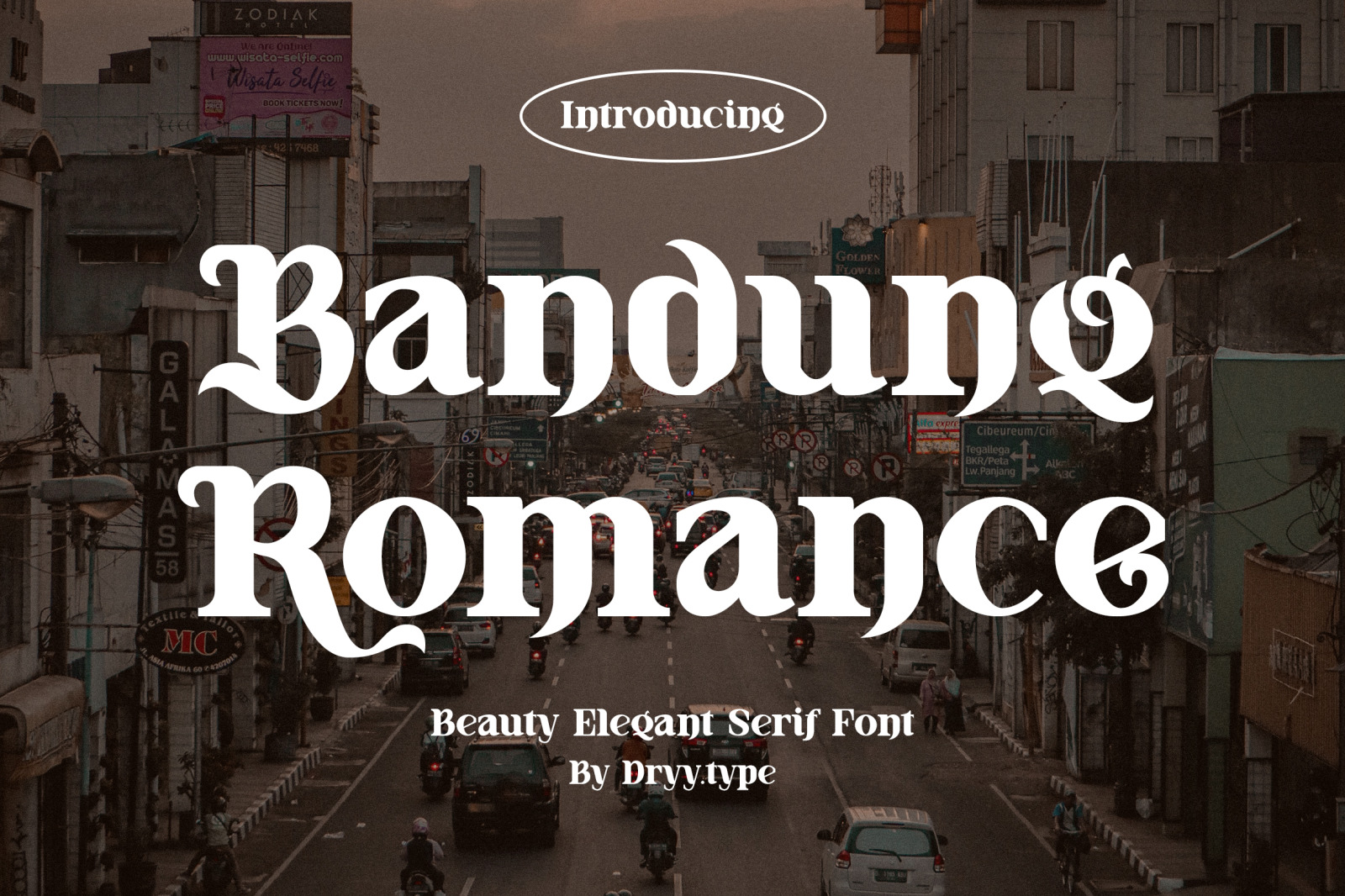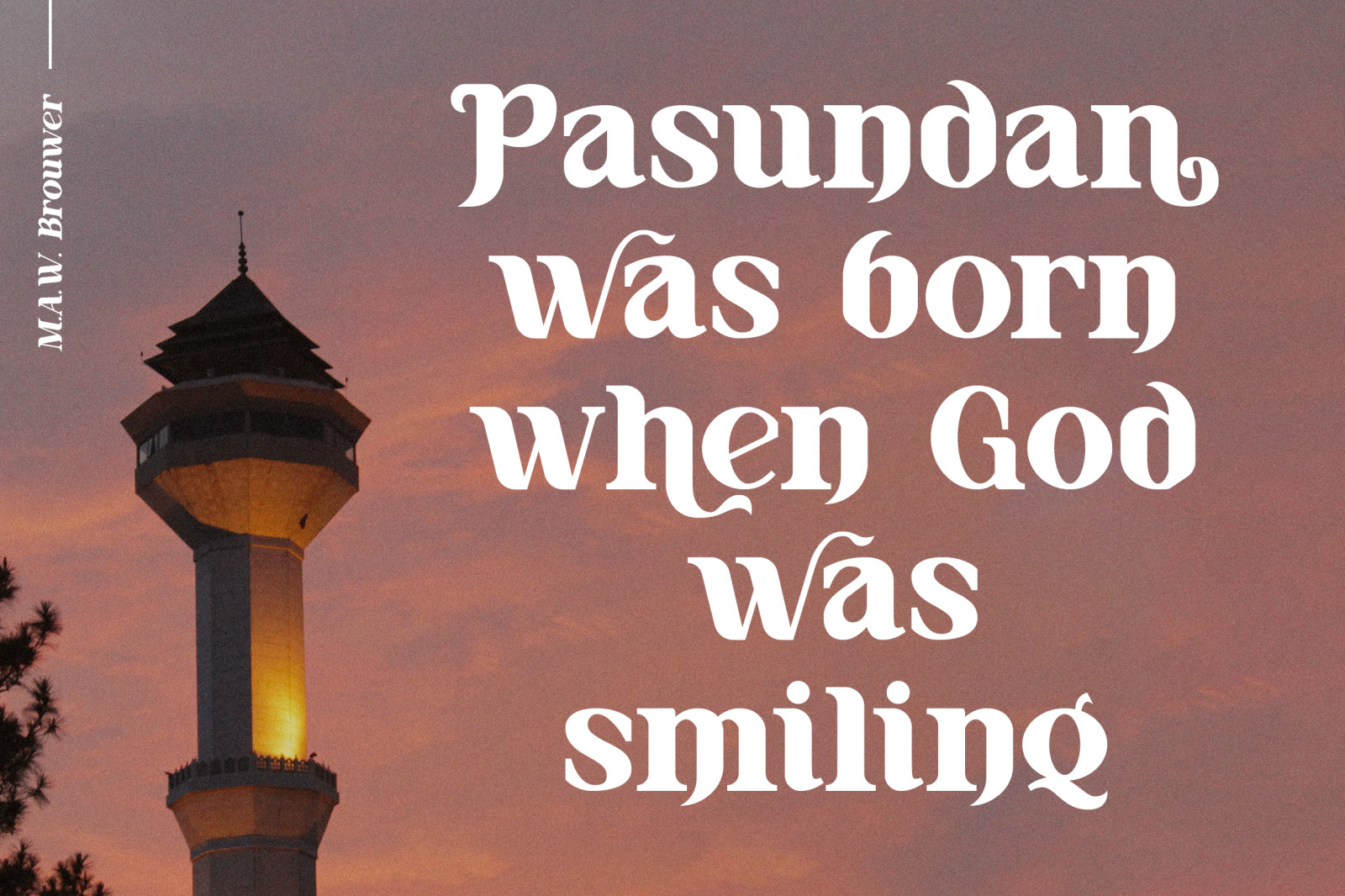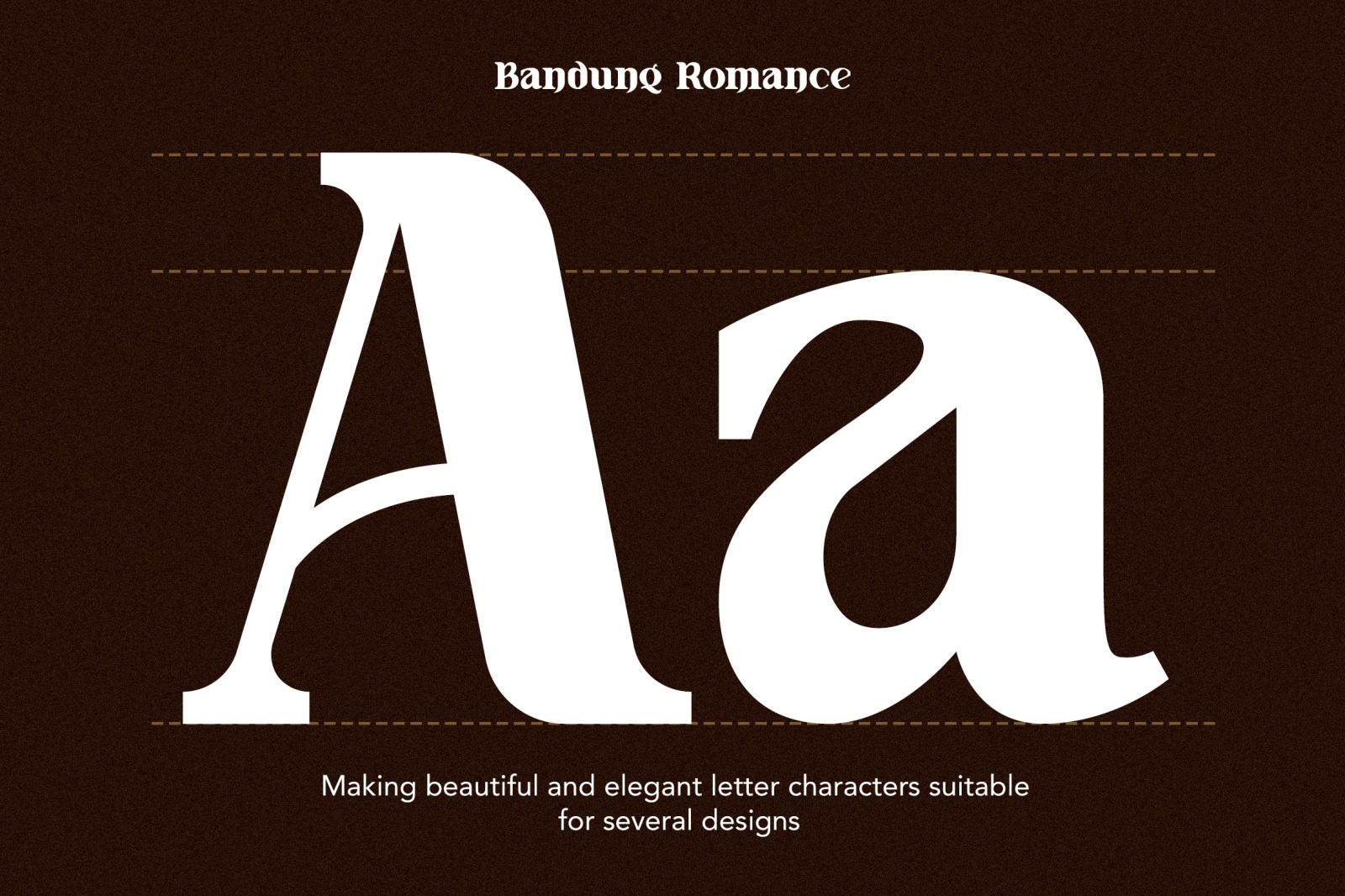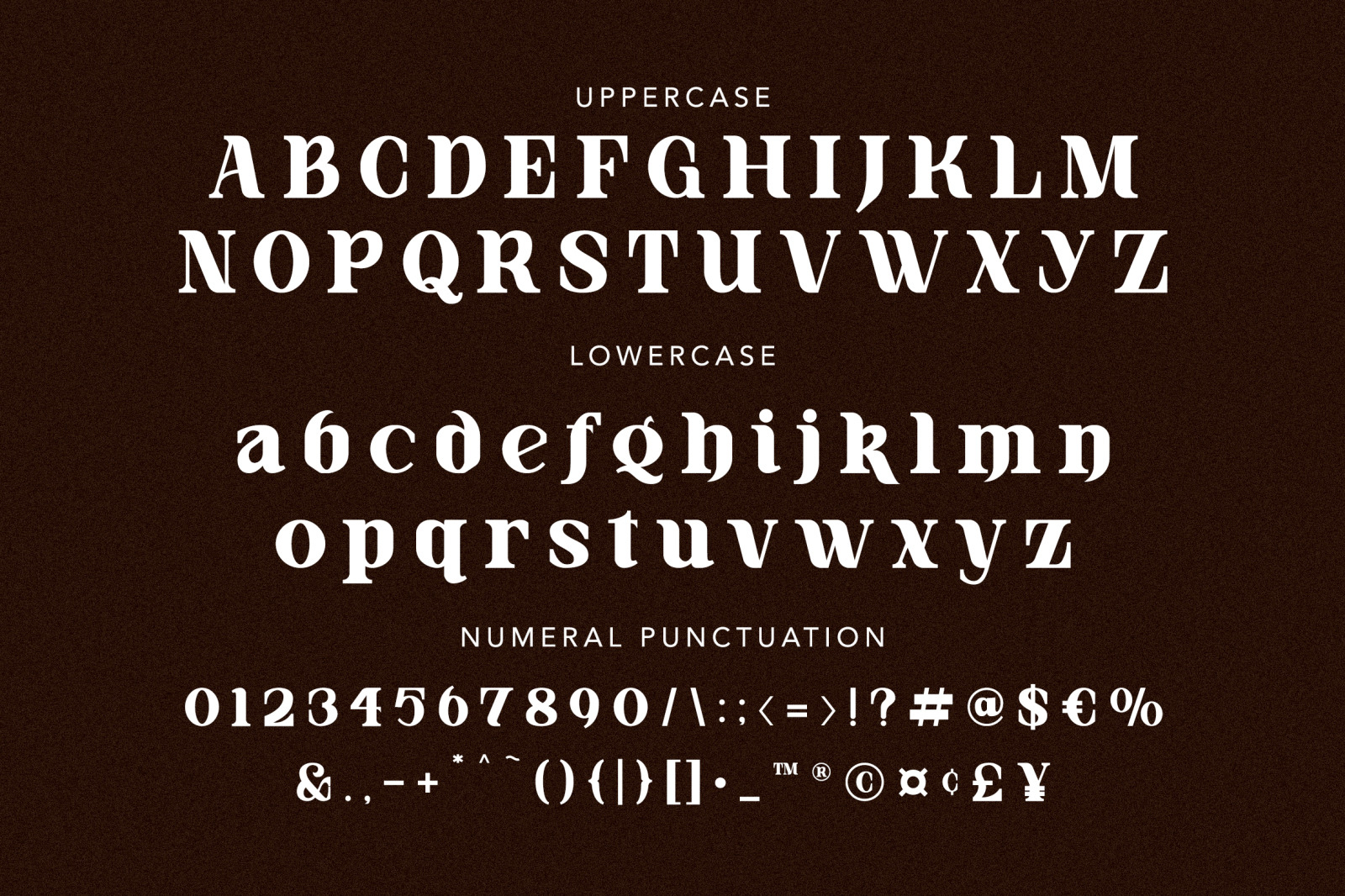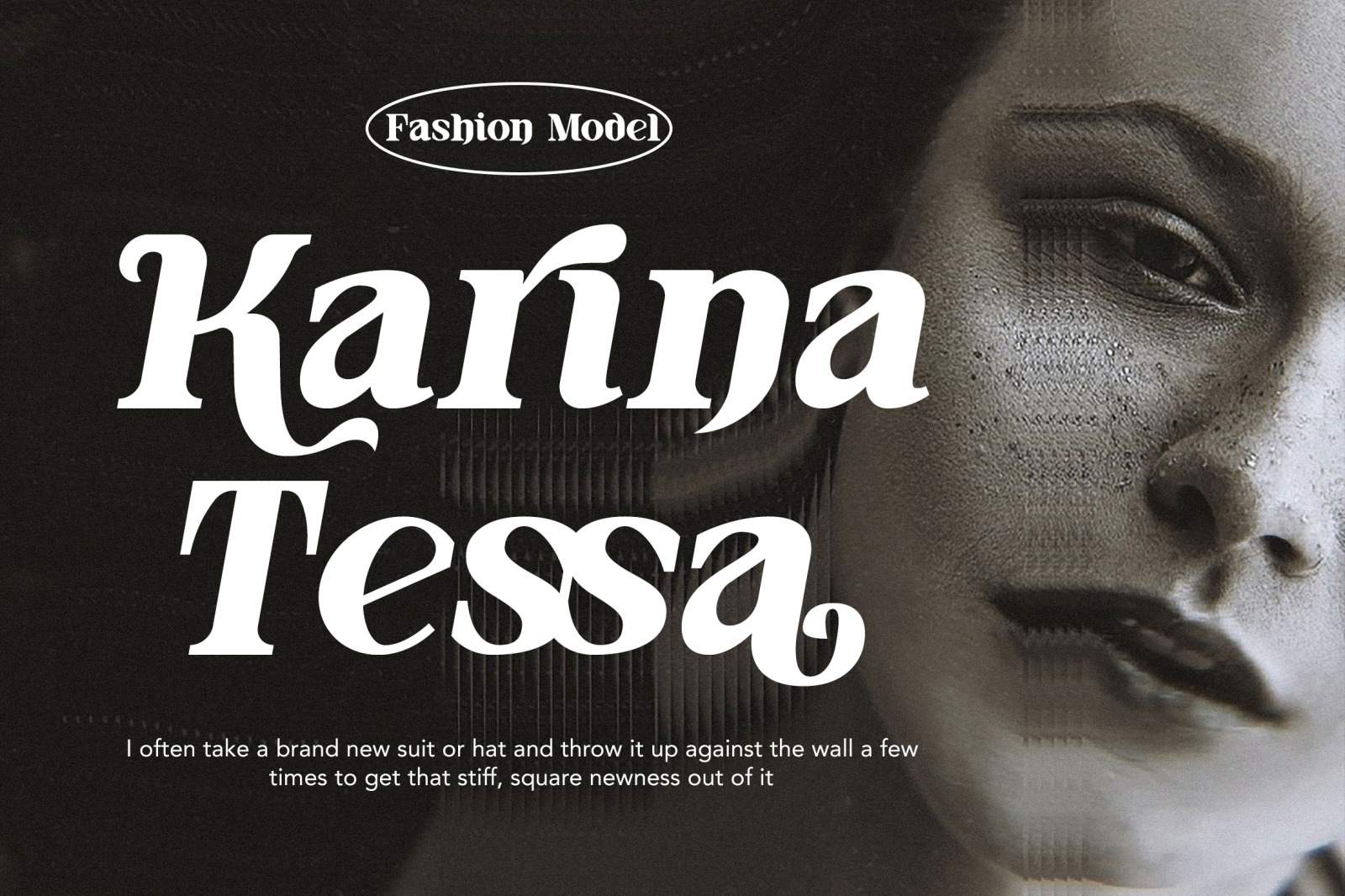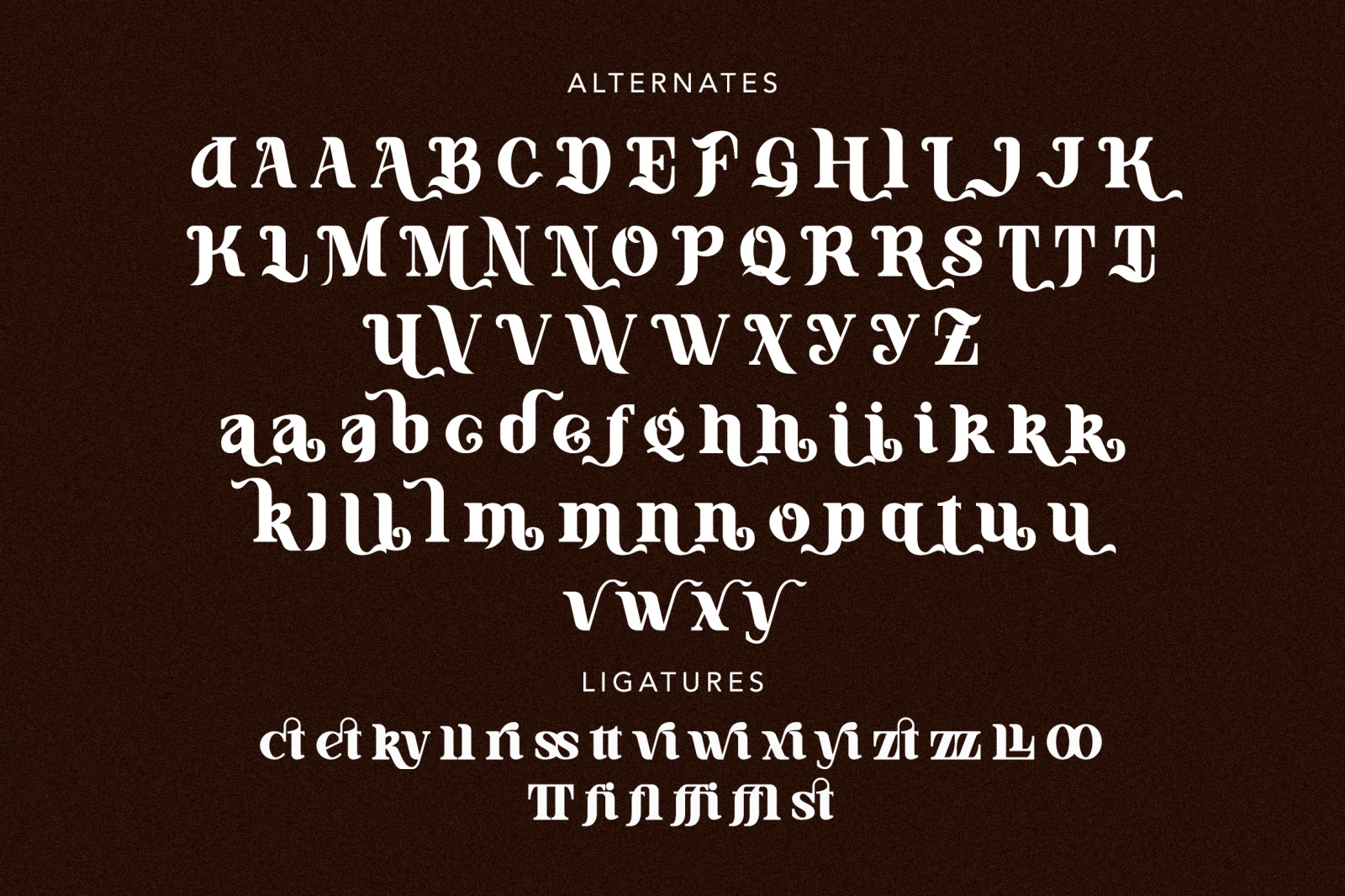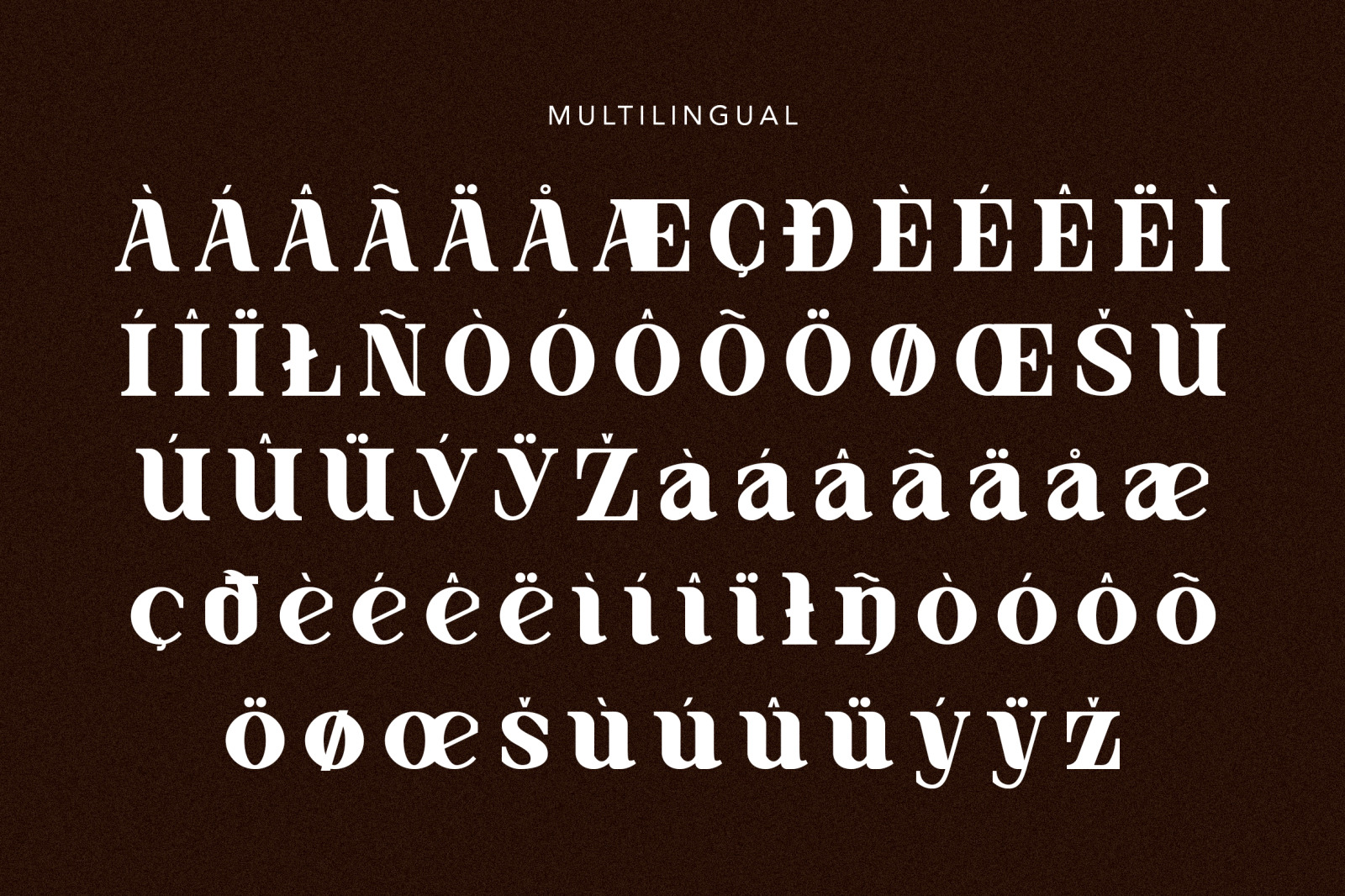
Bandung Romance - Serif Display Font
Bandung Romance Font
An aesthetic font that has a unique and elegant character to use.
Bandung Romance is a beautiful and elegant serif Font. With inspiration from a beautiful city with all the memories and love that blossomed in it . This font I created is meaningful & very versatile, it goes well with various designs, elevating them to the highest level. Add this font to your favorite creative ideas and see how it turns out!
Features: Uppercase, Lowercase, Alternates, Ligatures & multilingual Support